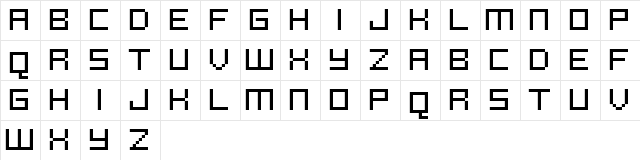
FFF Reaction Trial Regular
Design Context for FFF Reaction Trial Typeface
FFF Reaction Trial is a composed and adaptable typeface that performs quietly and consistently across a wide range of design contexts.